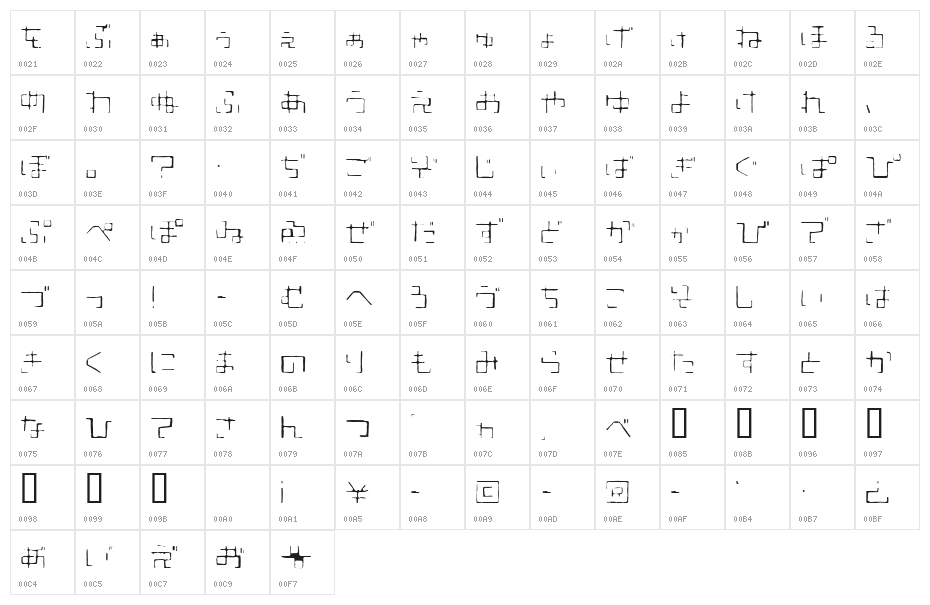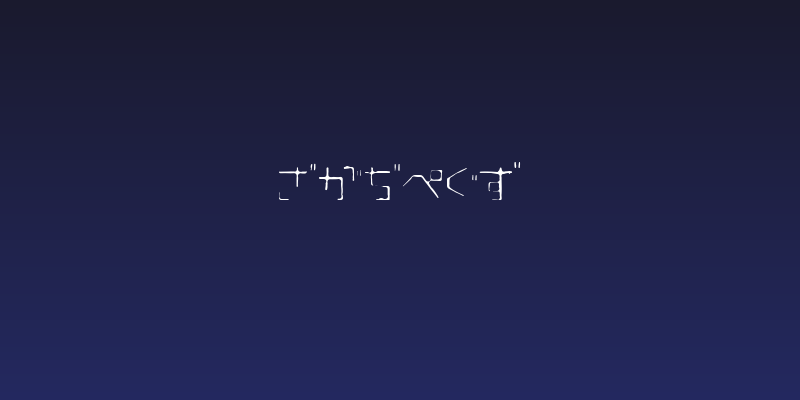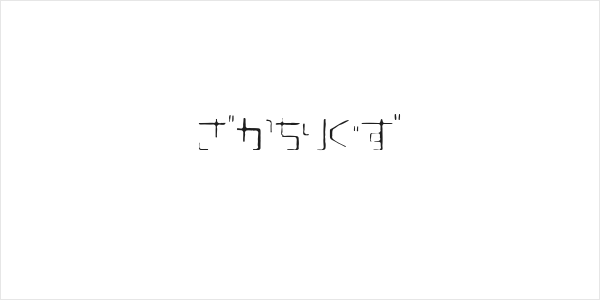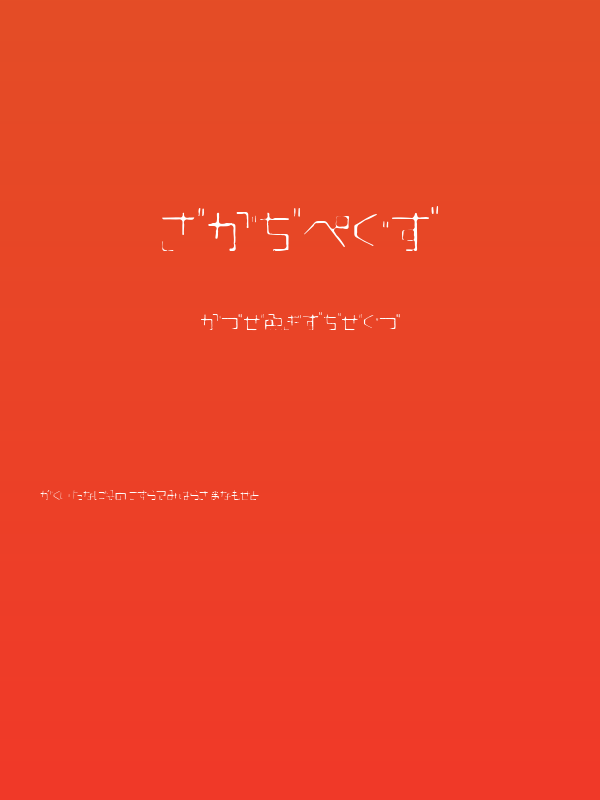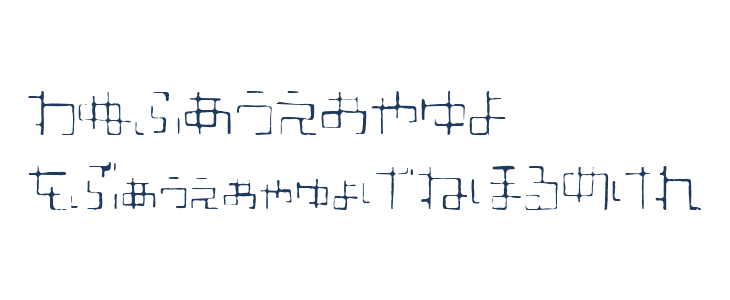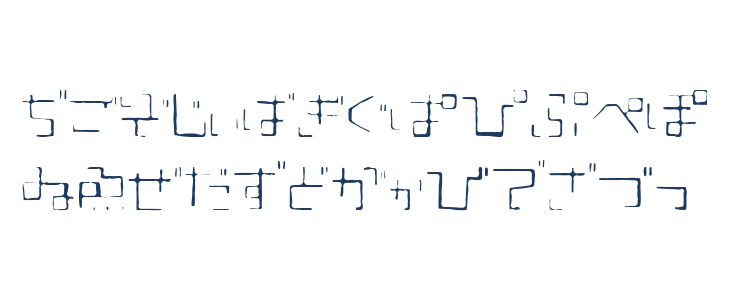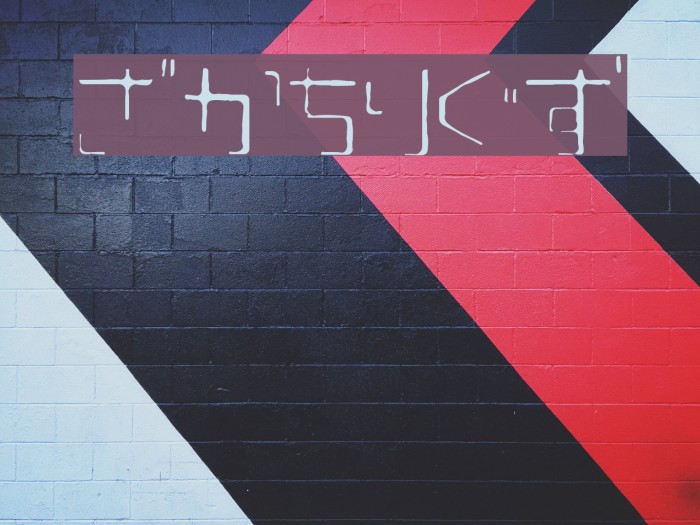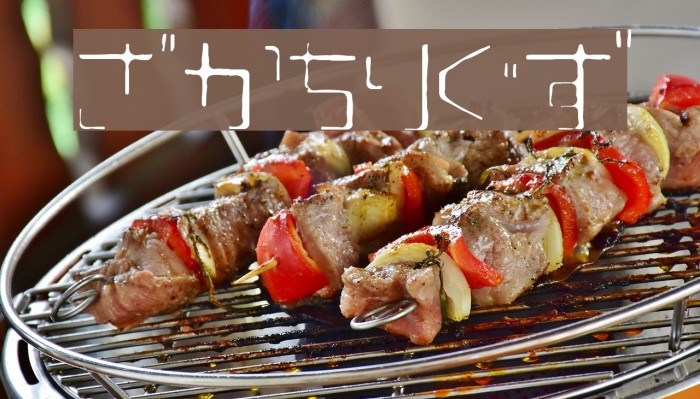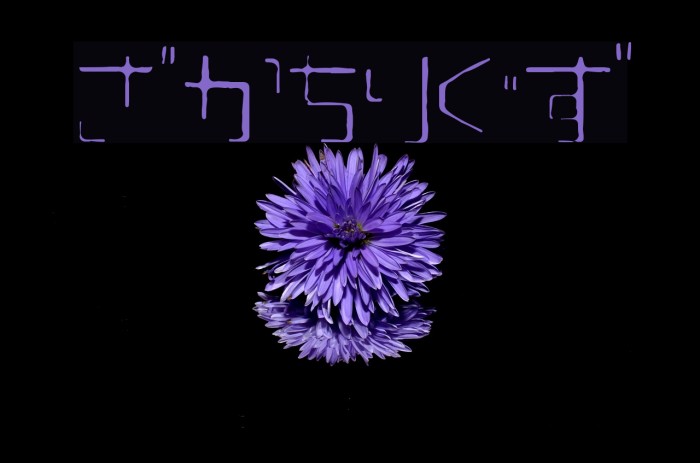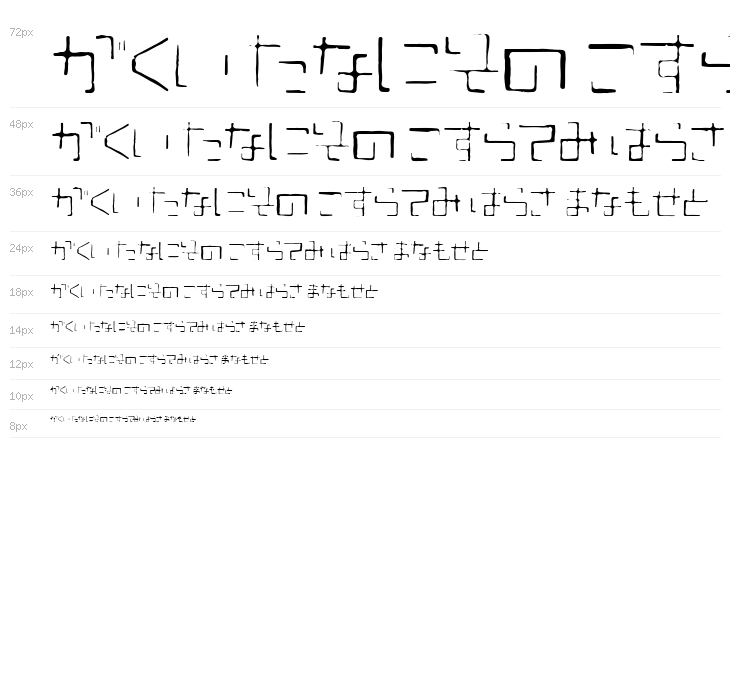
XtalHR Font
XtalHR Description
This font features a unique and artistic style, characterized by its abstract and fragmented appearance. The characters are composed of disconnected lines and shapes, creating a modern and avant-garde aesthetic. The strokes vary in thickness, adding a dynamic and textured look to the font. The overall design is highly unconventional, making it stand out as a decorative and display typeface. Its distinctiveness makes it suitable for creative projects that aim to capture attention and convey a sense of innovation.
| Categories | Decorative |
| Overall Style | Modern, Artistic |
| Use Case | Logos, Posters, Art Projects |
| Proposed Projects | Ideal for artistic posters, album covers, experimental branding, and modern art installations. |